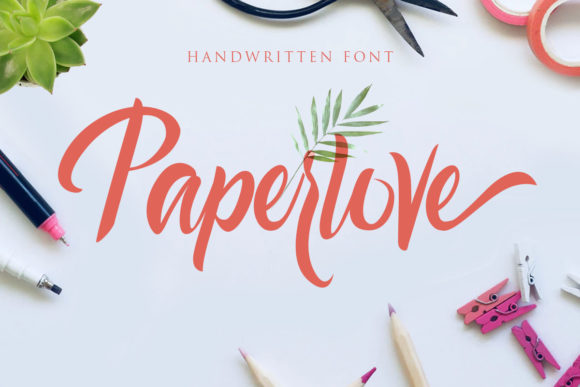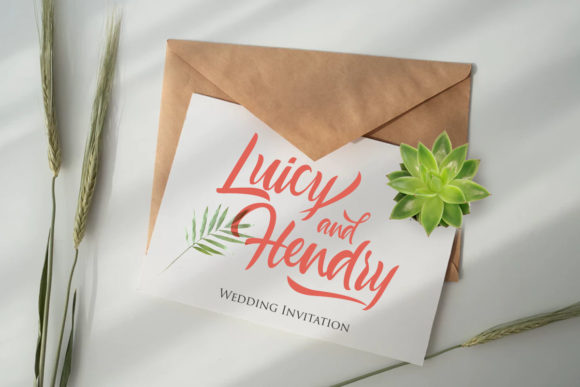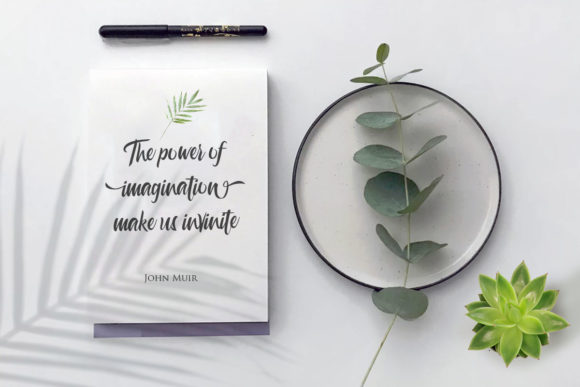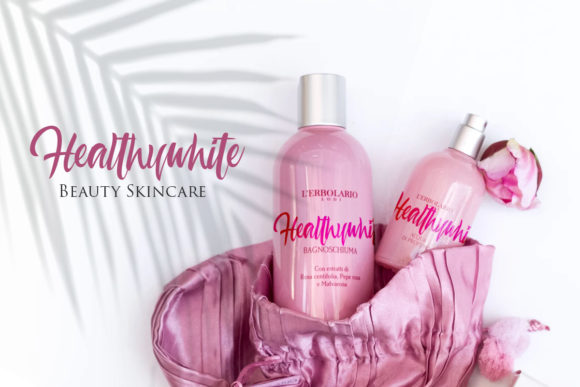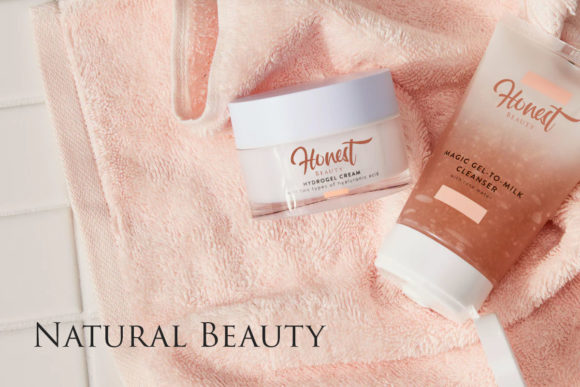
Paperlove Font
About Paperlove Font
Paperlove is a sweet and stunning handwritten font with a whimsical twist. Use it to turn any design project into a true standout!